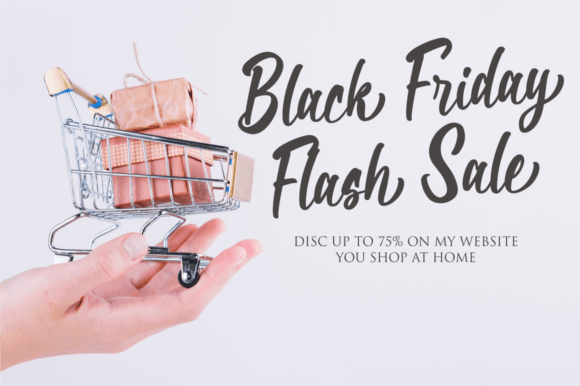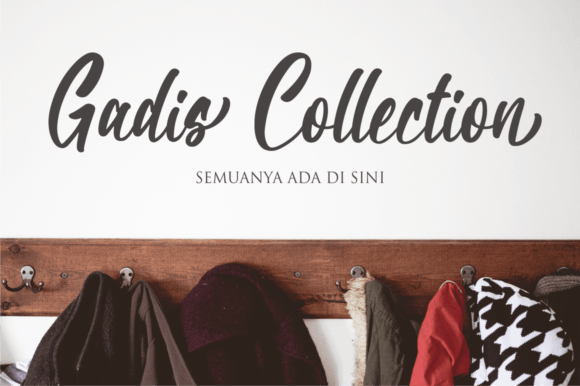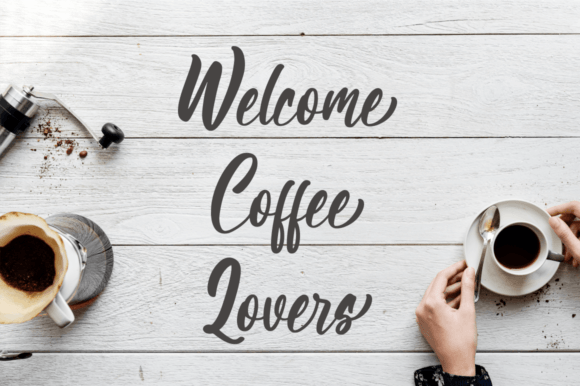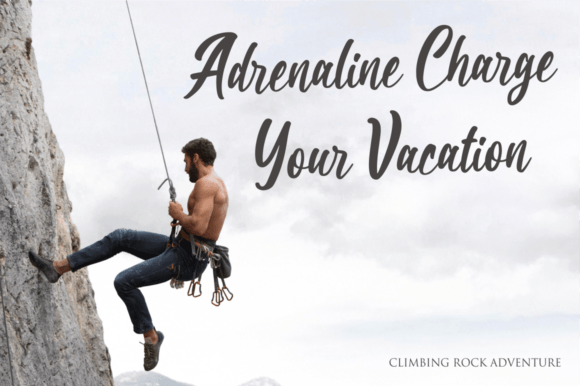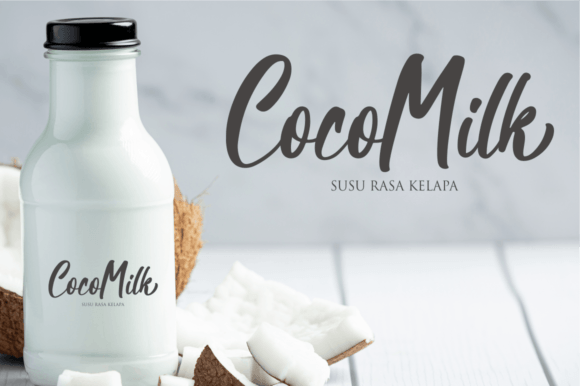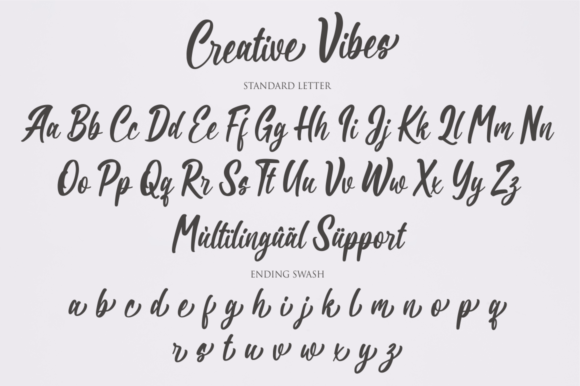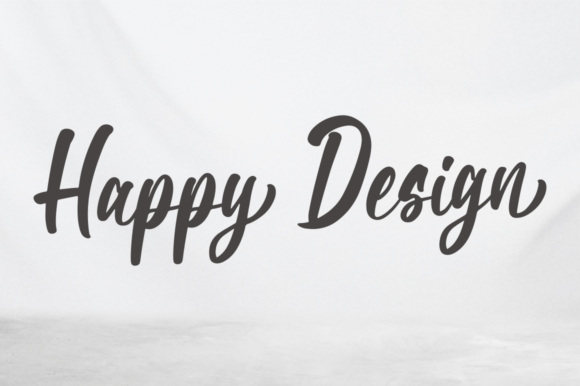
Creative Vibes Font
About Creative Vibes Font
“Creative Vibes” is a contemporary and smooth script font that embodies elegance and creativity. Its modern and sophisticated design makes it an ideal choice for various creative projects, especially for occasions like weddings, invitations, greeting cards, and more. With its dainty and joyful style, “Creative Vibes” adds a touch of romance and personalized charm to your designs, making them visually appealing and emotionally resonant.
The font’s smooth and flowing letterforms create a sense of grace and sophistication, ensuring a harmonious look in your designs. Its modern aesthetic and elegant curves make it suitable for a wide range of applications, including wedding invitations, branding, social media posts, and more. “Creative Vibes” enhances the visual appeal of your projects with its romantic and personalized touch, making it an excellent choice for conveying heartfelt messages.
“Creative Vibes” evokes a sense of joy and creativity, making it perfect for projects that celebrate love and special moments. Its dainty and joyful demeanor creates a romantic atmosphere, making it ideal for expressing warm wishes and cheerful sentiments. Whether used for wedding stationery, heartfelt notes, or creative designs, “Creative Vibes” adds a touch of romance and creativity to your projects, making them truly special and memorable.
One of the standout features of “Creative Vibes” is its versatility. Its modern and smooth style allows it to adapt seamlessly to various design contexts, allowing you to create a wide range of personalized and romantic designs. The font’s ability to convey both elegance and creativity makes it a valuable asset for designers seeking to add a touch of sophistication and joy to their projects.
Embrace the dainty and joyful vibes of “Creative Vibes” and let it infuse your designs with romance and creativity. Its modern and elegant style makes it a perfect choice for conveying heartfelt messages and creating memorable moments. With “Creative Vibes,” you can confidently craft romantic and personalized designs that leave a lasting impression, making your audience fall in love with your creative work.